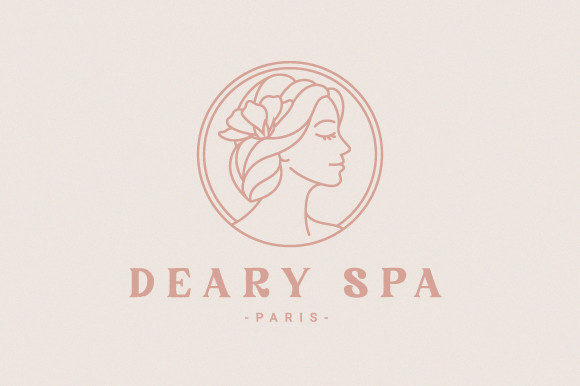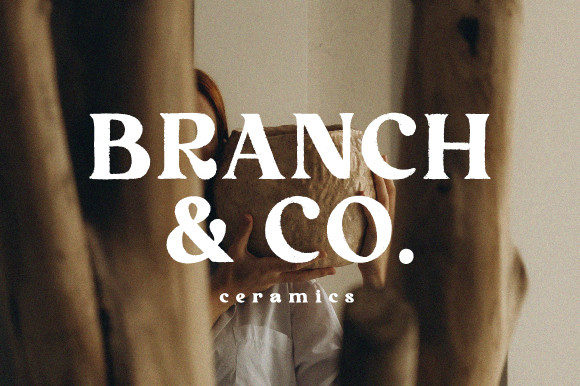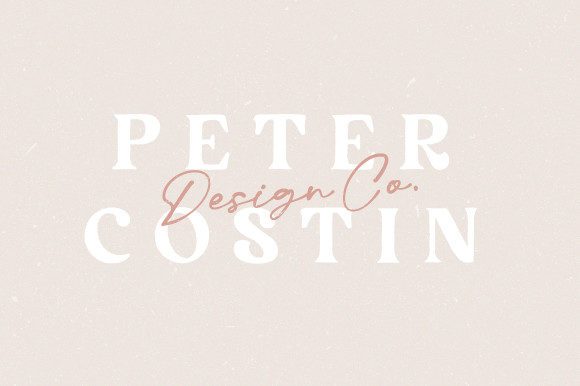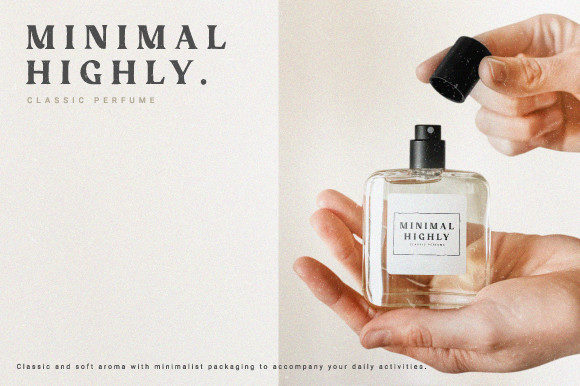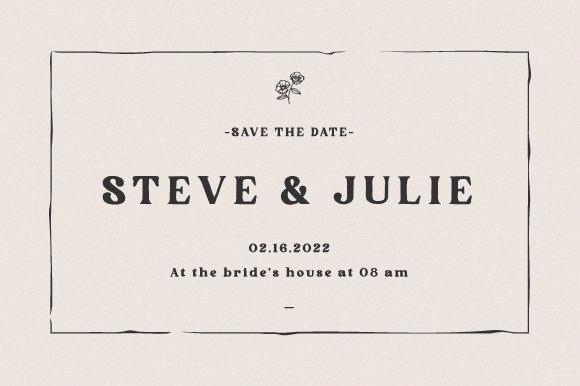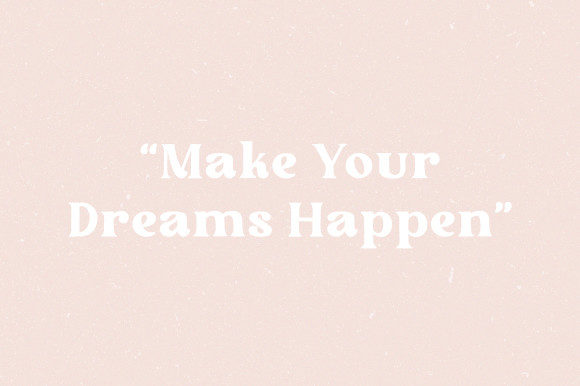
Introduction to Peach More Font
Peach More is a cool and thick lettered serif font.
This font reads as strong, confident, and dynamic and can add tons of stylish character to your designs .